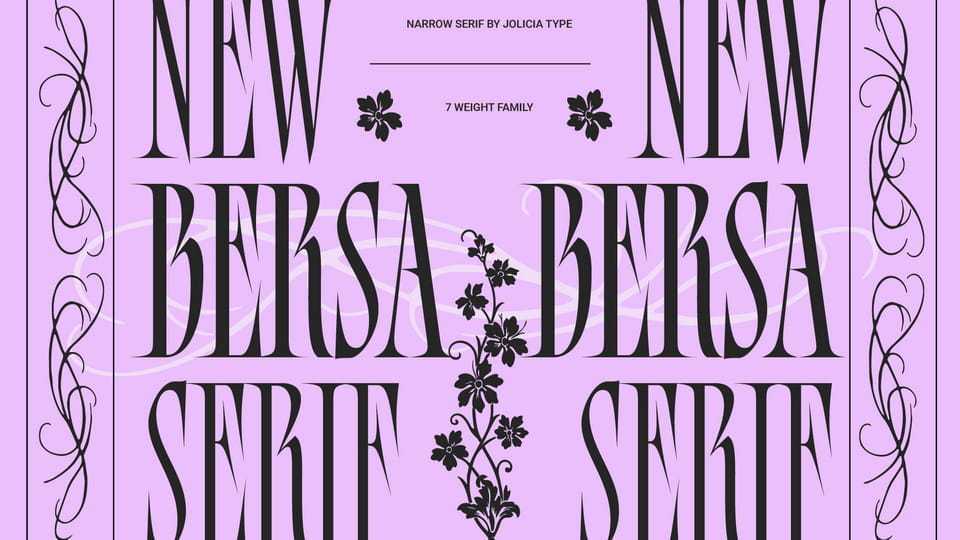
Download Bersa Serif font, a narrow serif typeface with sharp, pointed terminals and subtle blackletter-inspired strokes. Designed with condensed proportions, it delivers strong visual impact while maximizing space efficiency.